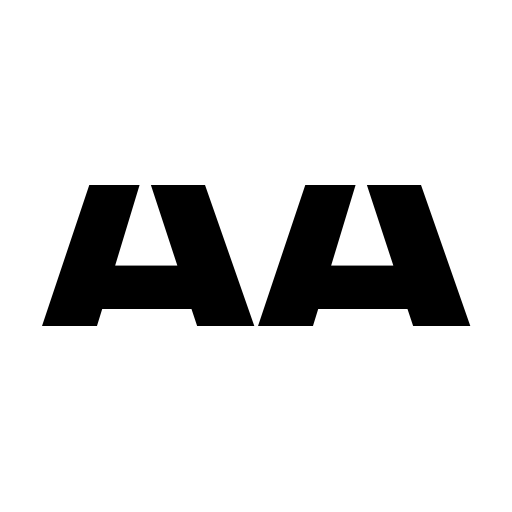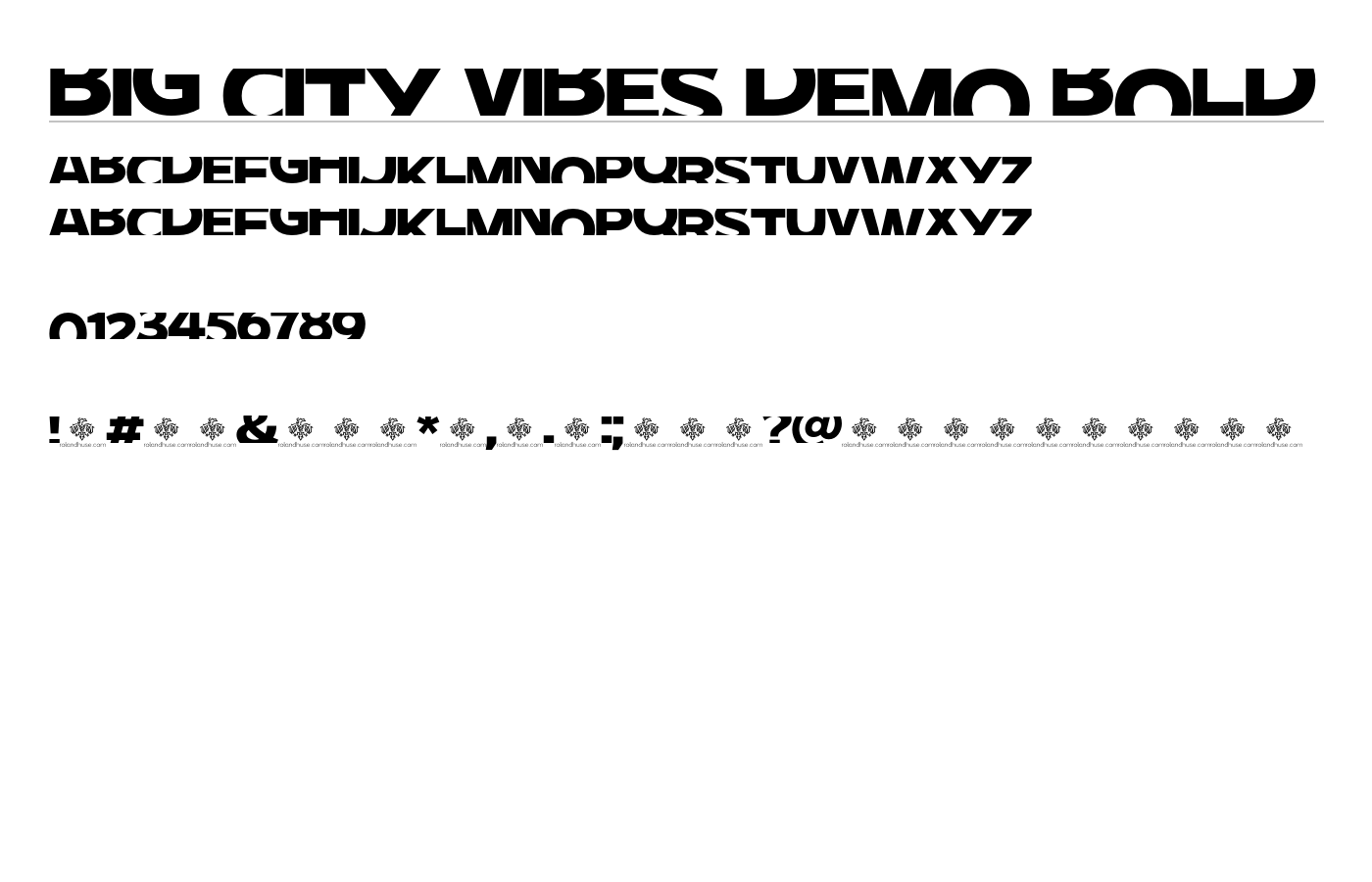
Big City Vibes Demo is a bold, geometric sans serif font with a strong urban and modern feel. Its distinct letterforms feature sharp angles and unique cutouts, giving it a dynamic, edgy personality that suits trendy branding, headlines, and posters. This font works well for projects needing a contemporary, energetic vibe that stands out with confident style.
Big City Vibes Demo Font
About Big City Vibes Demo Font